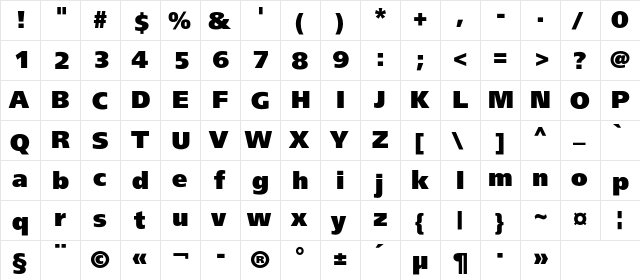
FreeSetBlackC Regular Font Preview
FreeSetBlackC Regular
FreeSetBlackC Regular Font Details
Design Context for FreeSetBlackC Typeface
FreeSetBlackC offers clean, dependable letterforms without strong stylistic allegiance, making it a practical choice for designers who need flexibility.
Pro Tip: Use FreeSetBlackC in both headline and body roles to test its range before committing to a single application.